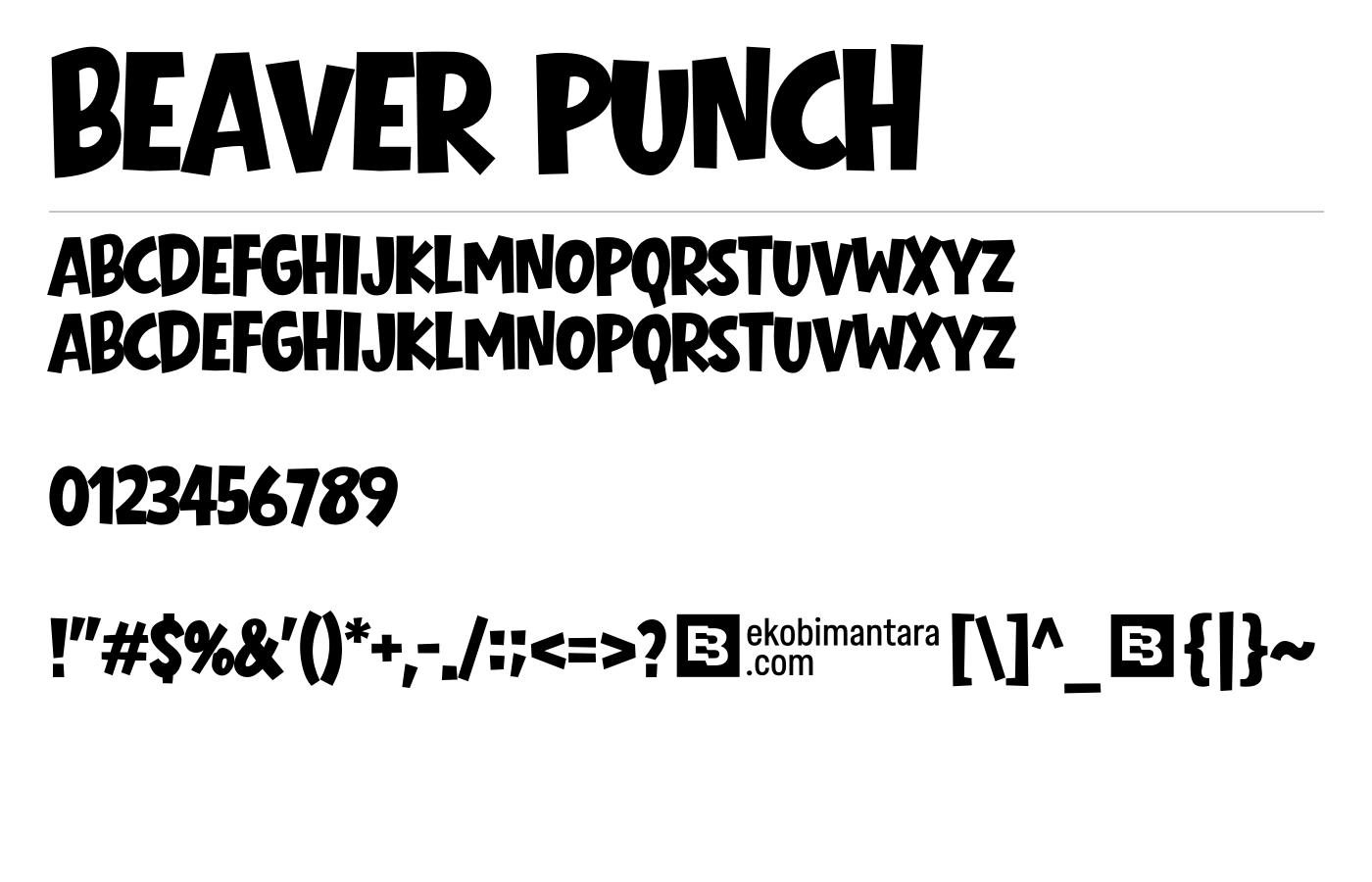
Beaver Punch is a bold, playful sans serif font with a hand-drawn, cartoonish style that brings energy and friendliness to any design. Its thick, irregular letterforms with slightly varied angles and strong presence make it perfect for eye-catching headlines, posters, or branding aimed at a fun and informal vibe. This font works well in creative and casual contexts where a lively, approachable look is desired.
Beaver Punch Font
About Beaver Punch Font
| Font family | Beaver Punch Font |
| Designer | Eko Bimantara |